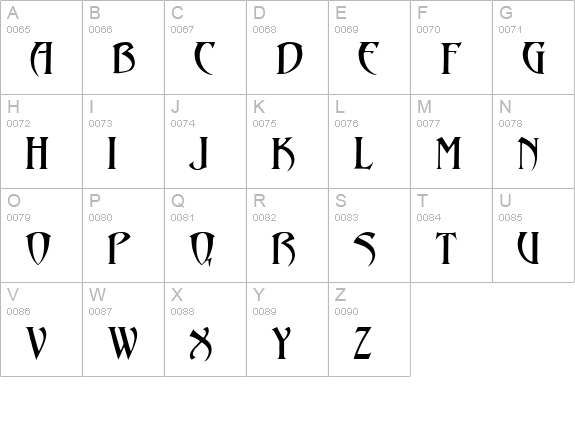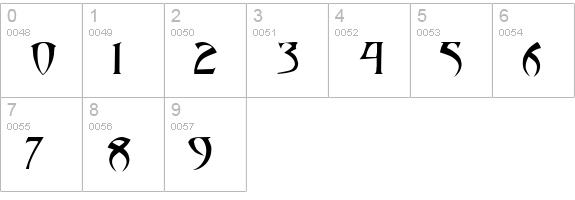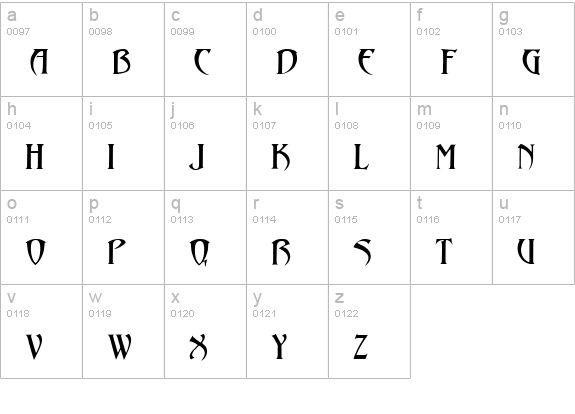
Arthur Gothic Font Details
Arthur Gothic font is a stunning display typeface that exudes elegance and sophistication. Its sharp edges and intricate details give it a bold, yet refined appearance that is perfect for creating eye-catching designs. Whether you're designing a logo, poster, or website, Arthur Gothic font will make your text stand out and leave a lasting impression. What's even better is that Arthur Gothic font is completely free to download at FontsMarket.com. This means you can access this high-quality font without any cost, making it an excellent choice for both personal and commercial projects. Don't miss out on the opportunity to elevate your designs with the timeless beauty of Arthur Gothic font. Download it now and add a touch of class to your creations.